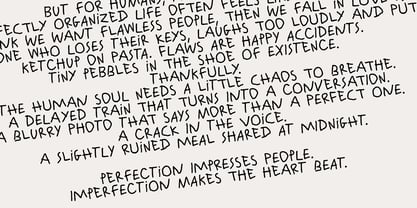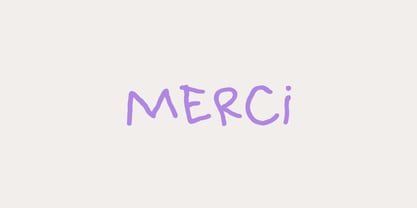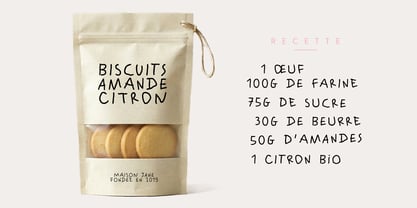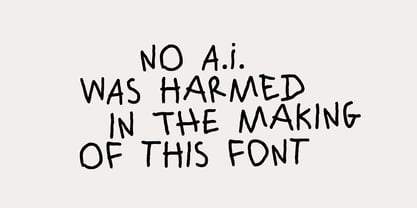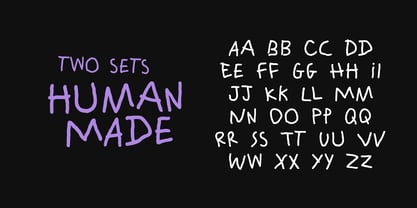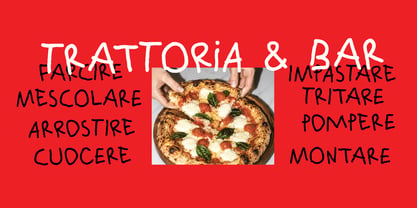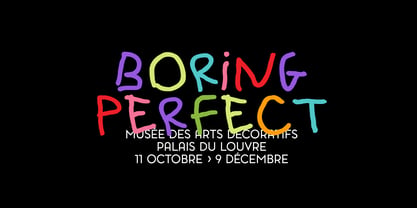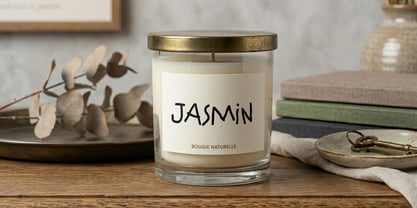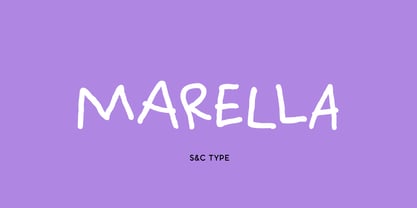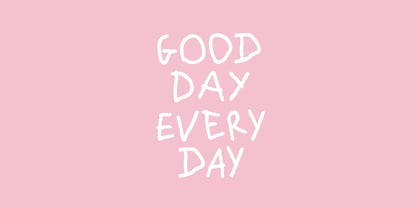
Marella
by S&C Type
The Marella Font Family was designed by Fanny Coulez and published by S&C Type. Marella contains 1 styles. More about this family
Marella is an authentic, all-caps handwritten typeface crafted by Fanny Coulez. With its irregular lines and dancing rhythm, this expressive font brings the spontaneous energy of a marker on paper. To ensure a organic and hand-made style, it includes alternate letters (lower - upper cases) to avoid repetition. Whether you want to add an artisanal touch to lifestyle packaging, a friendly vibe to food branding, or a rebellious edge to contrast with classic layouts, Marella is the perfect human-made choice to make your designs stand out.
Designers: Fanny Coulez
Foundry: S&C Type